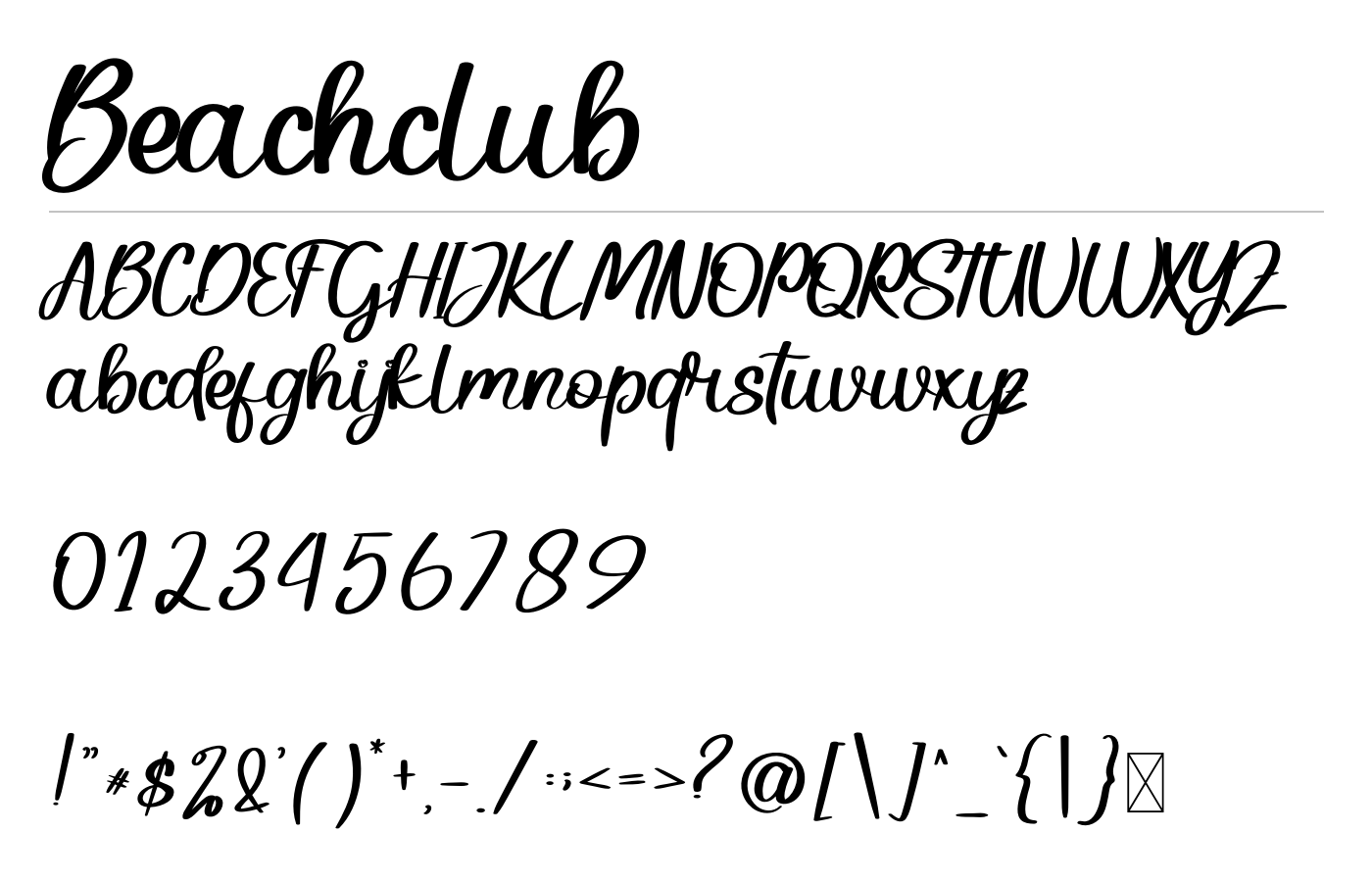
Beachclub is a lively and elegant script font featuring smooth, flowing strokes and a natural handwritten feel. Its medium weight and slightly condensed letterforms with distinctive loops and swashes make it ideal for creating a warm, inviting atmosphere, perfect for branding, invitations, and lifestyle projects that want a personal, friendly touch. This font’s stylish yet readable design works best in logos, headlines, and packaging where a playful but sophisticated look is desired.
Beachclub Font